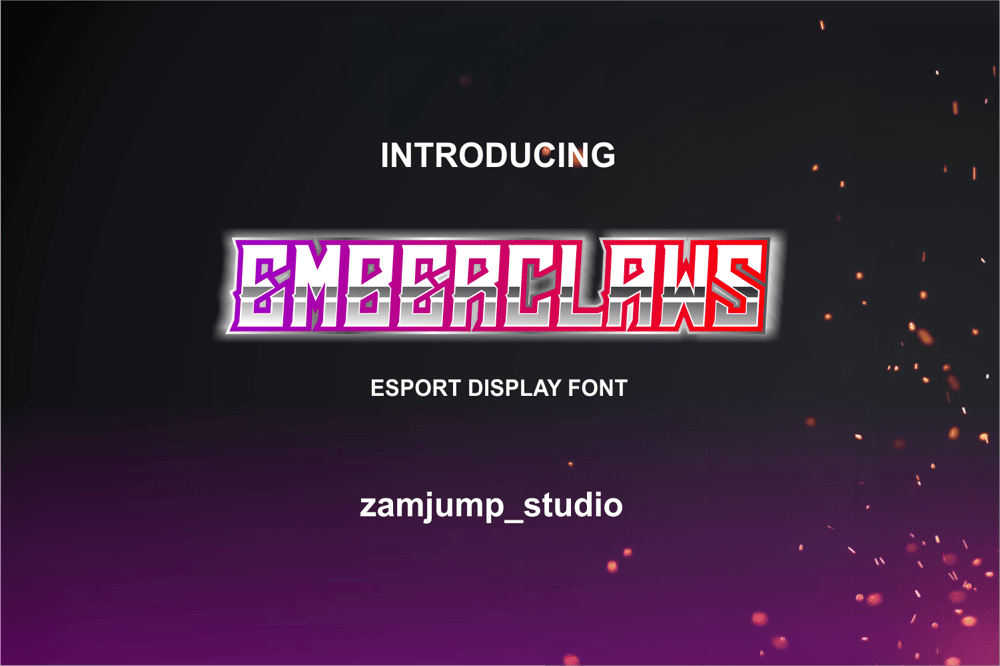
Emberclaws Font Family was designed by Zamjump and published by Zamjump. Emberclaws contains 1 styles and family package options. Emberclaw is a futuristic diplay font designed with uppercase characters. This font is perfect for logos, posters, product labels, or anything else. This logo is available in OTF formats. Features: Standard multi language characters,UppercasePunctuation & Numbers,Support on Mac and Windows OSEasy to install